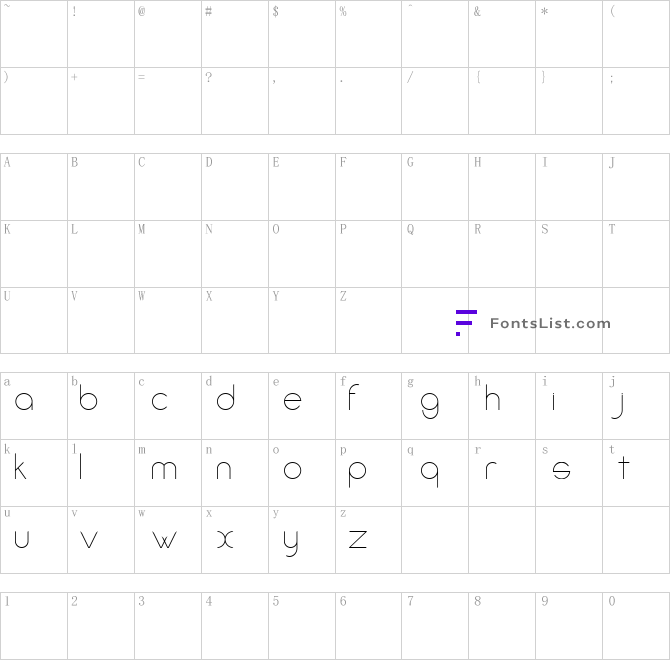
- Font Name:Amorino Beta
Amorino-Beta-copy-2-.ttf is a very beautiful artistic font, Amorino-Beta-copy-2-.ttf is widely used in the design and printing of various books and pictures,Amorino-Beta-copy-2-.ttf has a strong visual impact,Amorino-Beta-copy-2-.ttf is a commonly used font in newspapers, magazines and books, and is used in posters, e-commerce Poster design, store design, logo design, font design and other fields.Amorino-Beta-copy-2-.